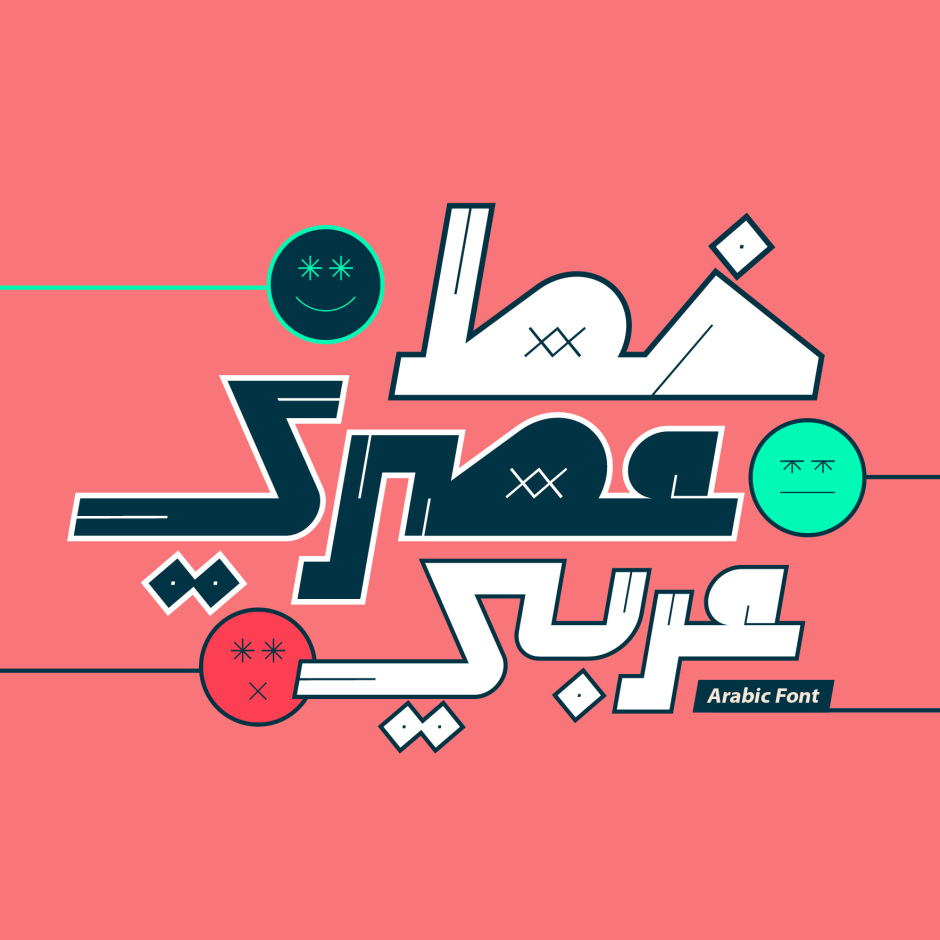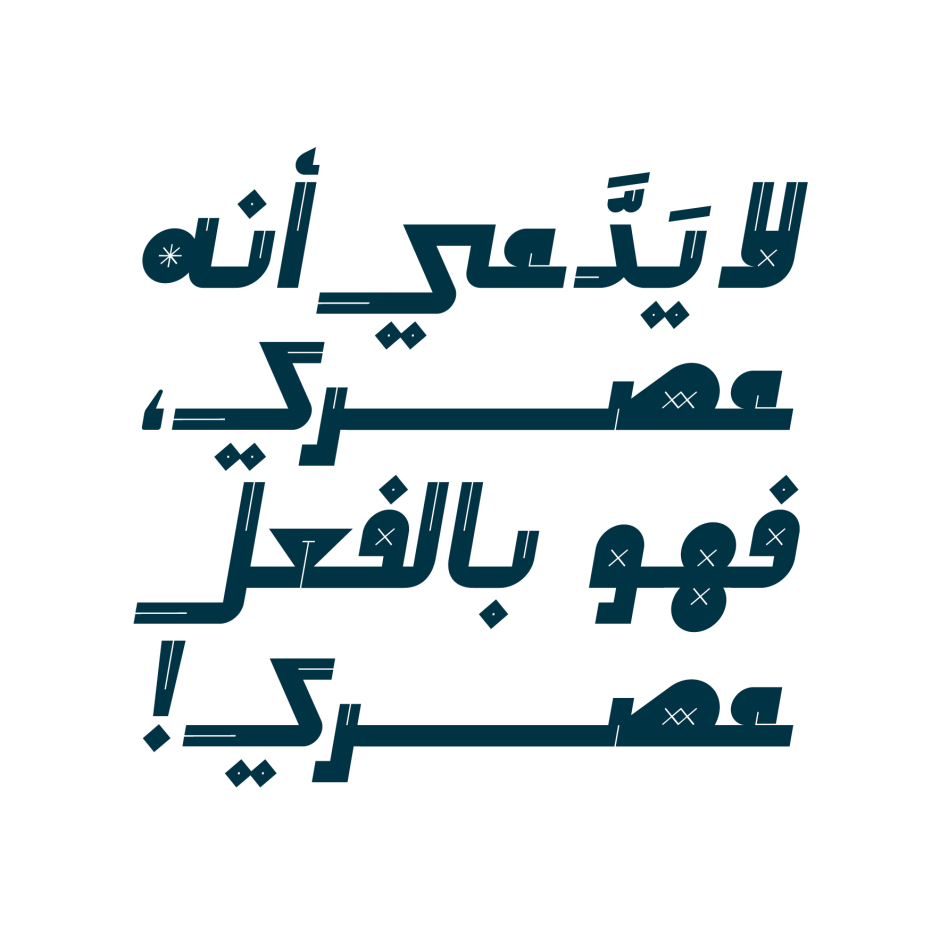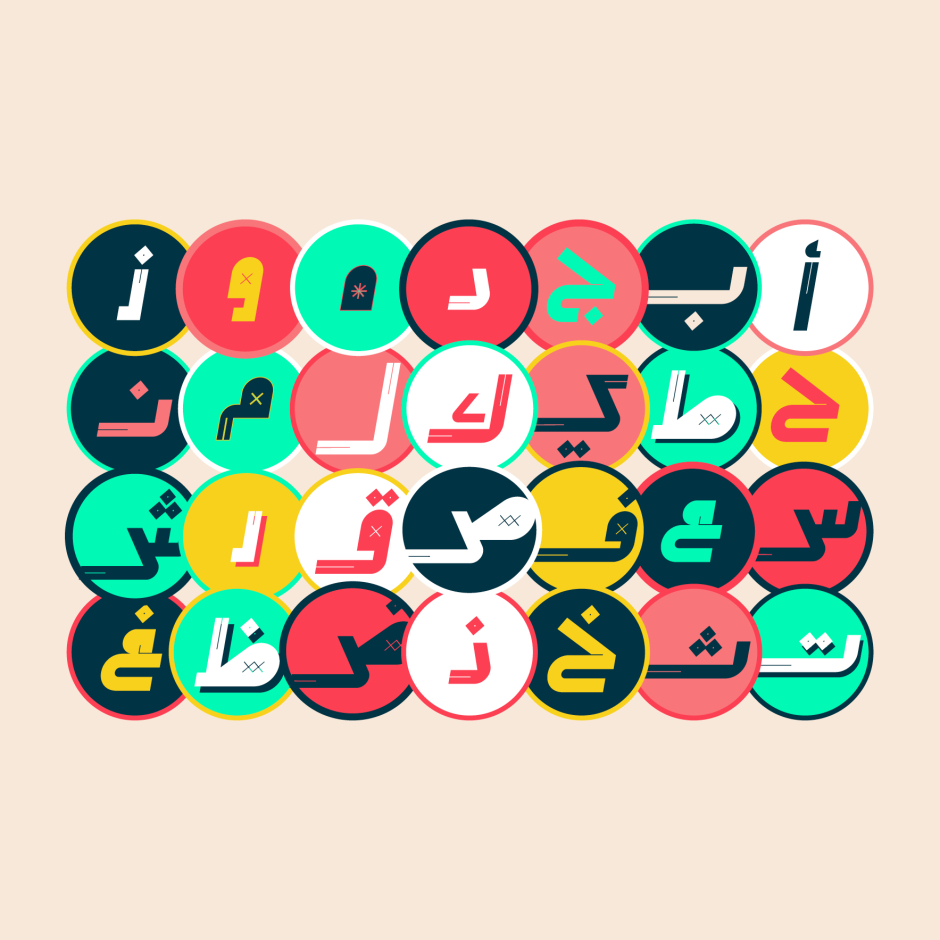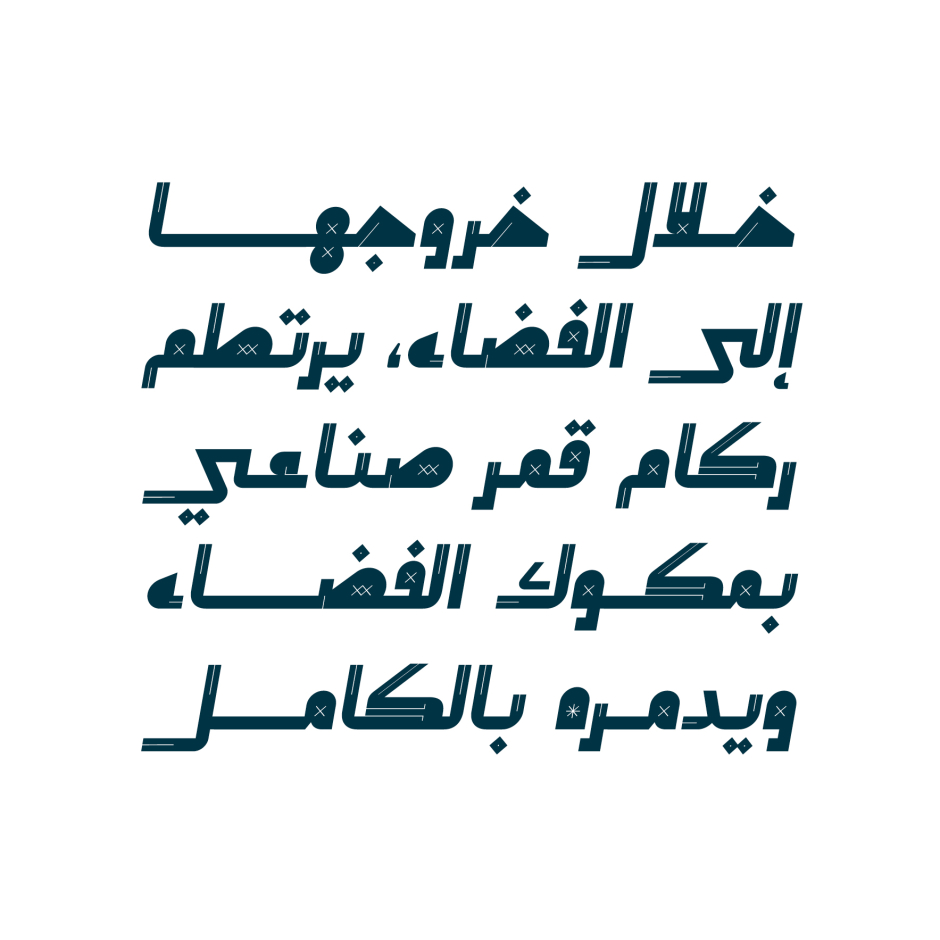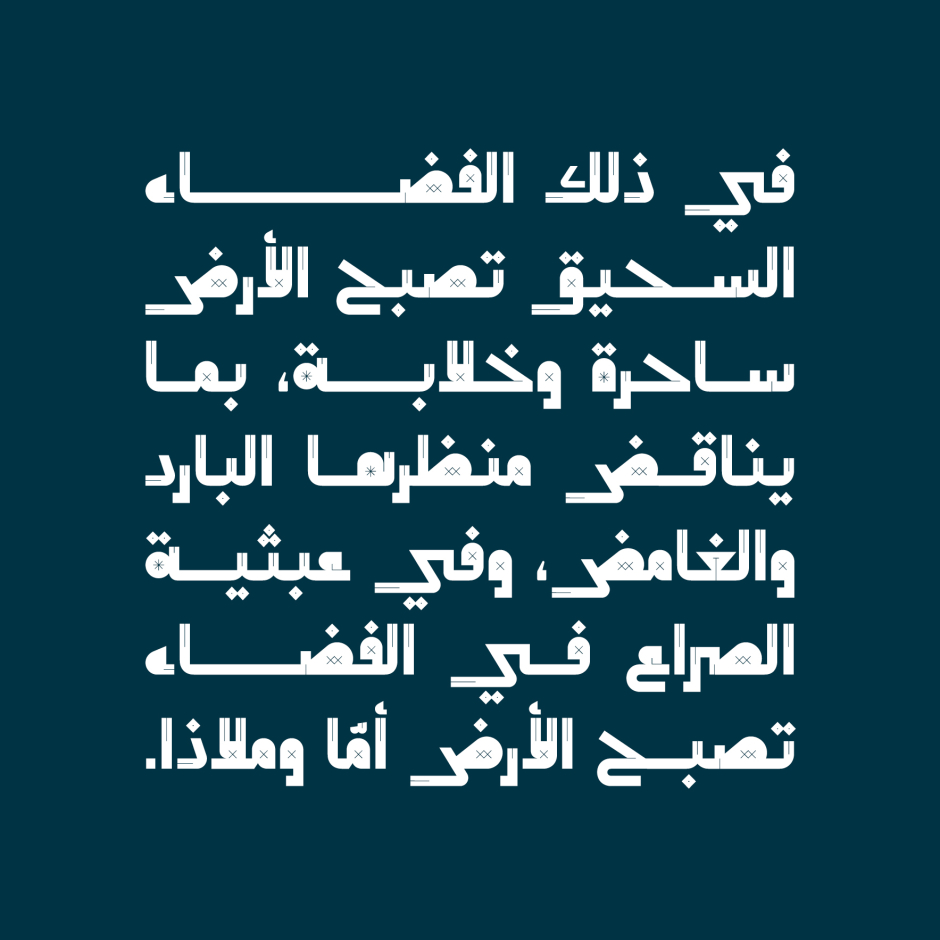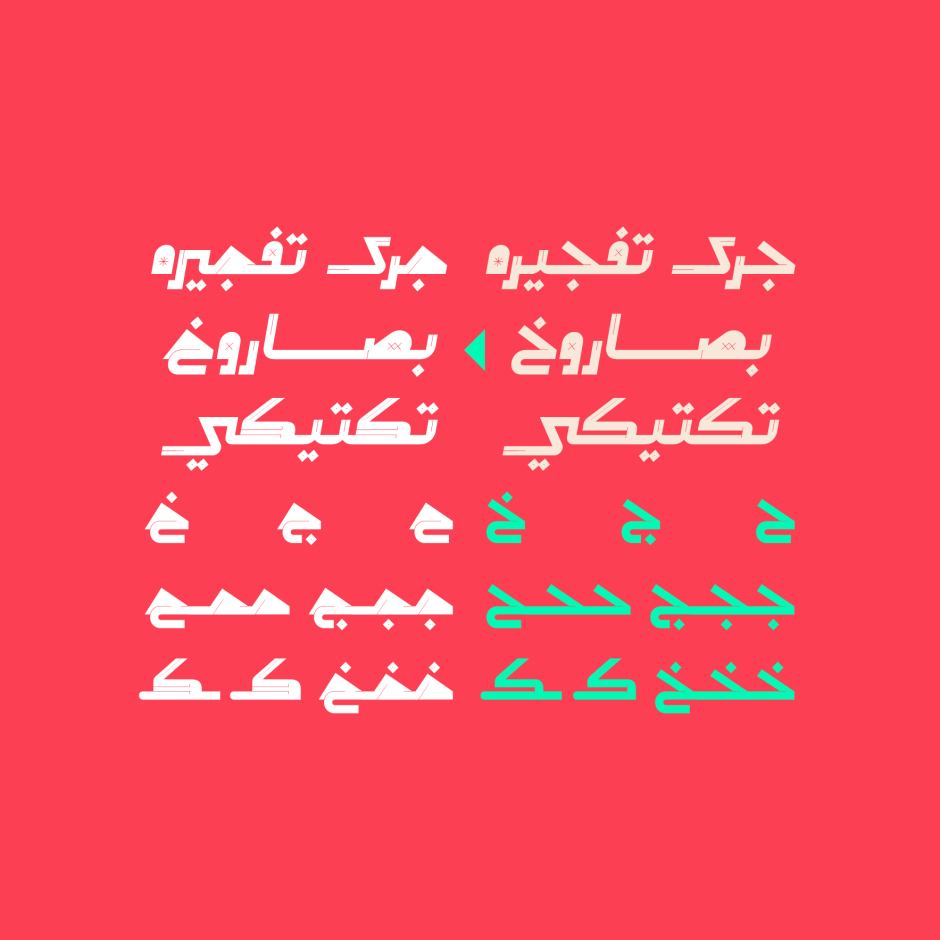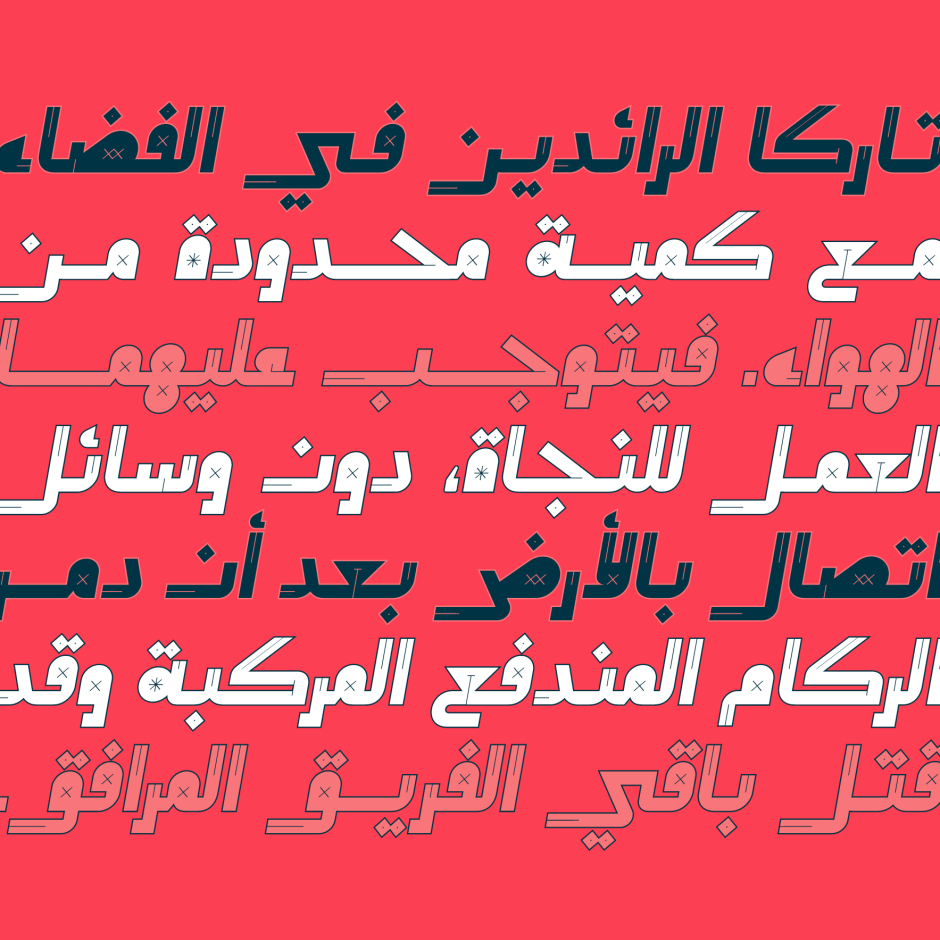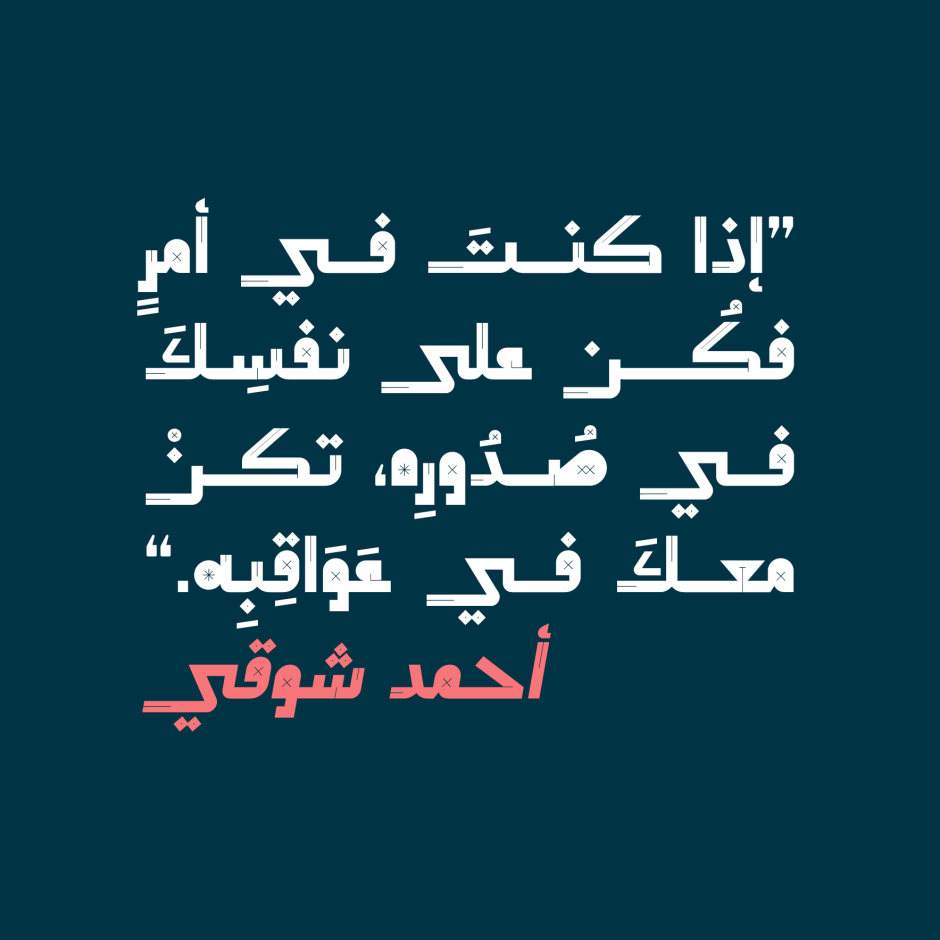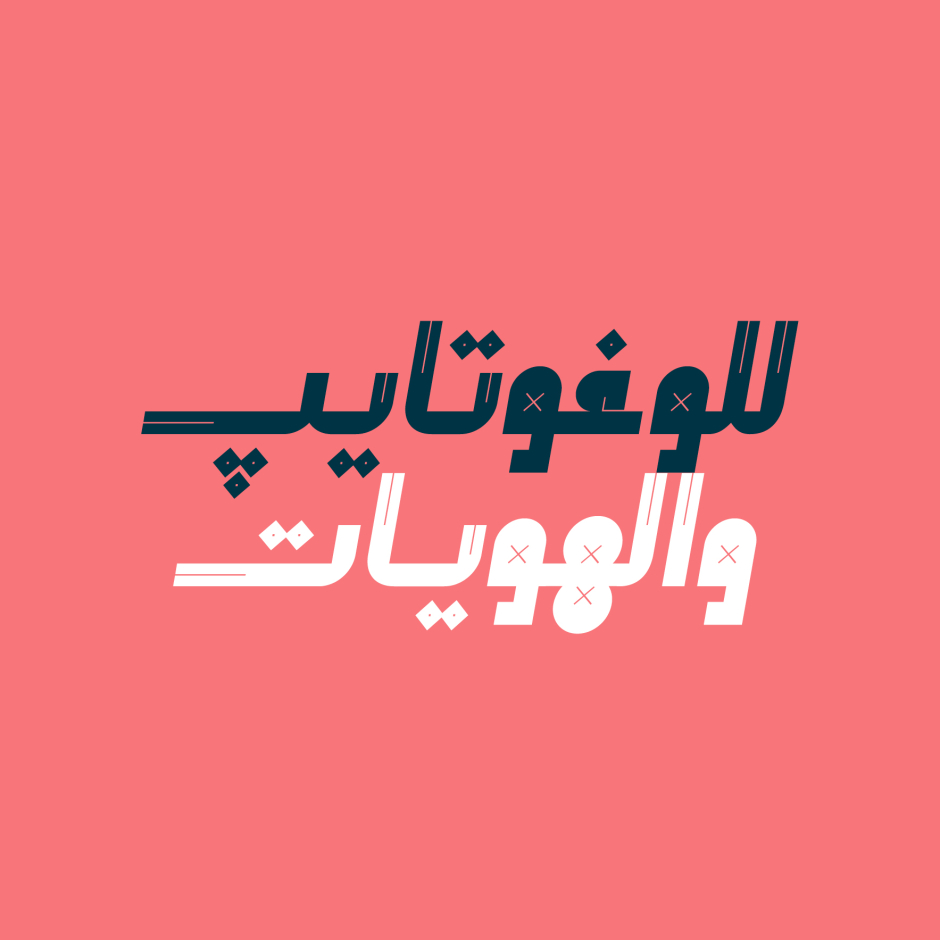
Aasry
/ Oblique
Aasry (the Arabic for 'Modern') is an Arabic display font that features edgy and dynamic letterforms design. The font is suitable for contemporary design projects including web design, branding, advertising, and print. Aasry includes two styles (Normal and Oblique) and it supports Windows, macOS and mobile applications.